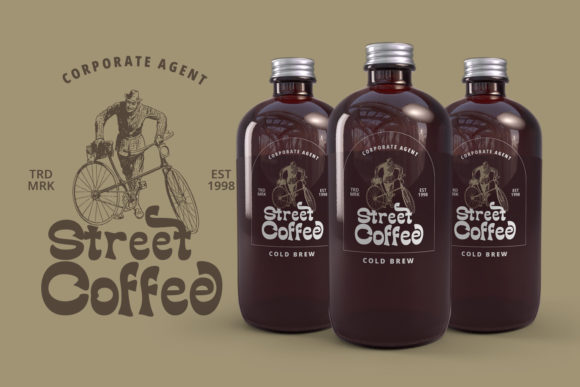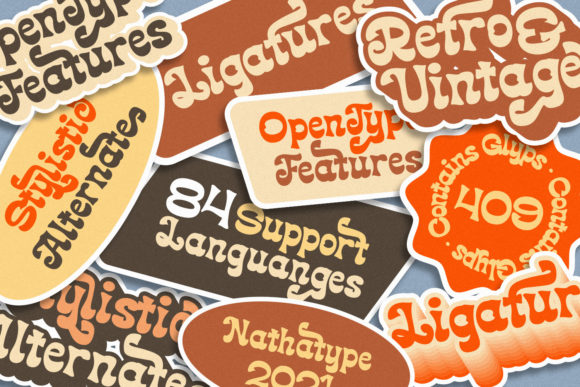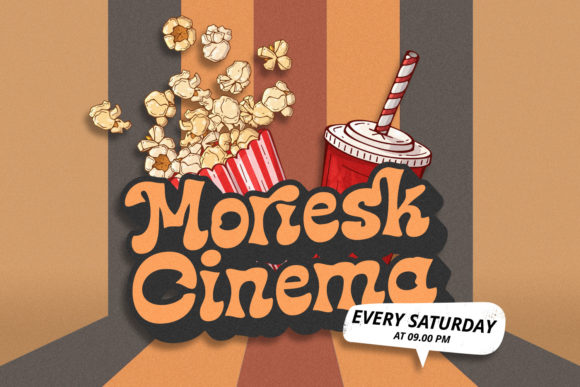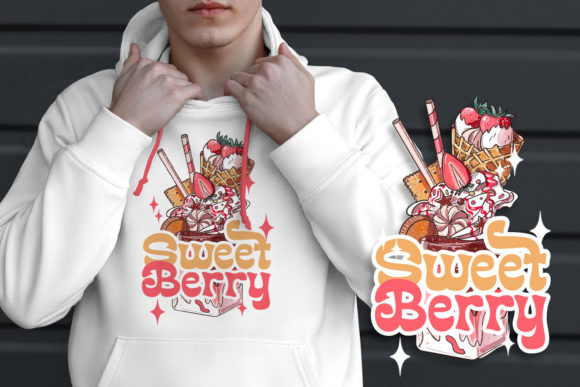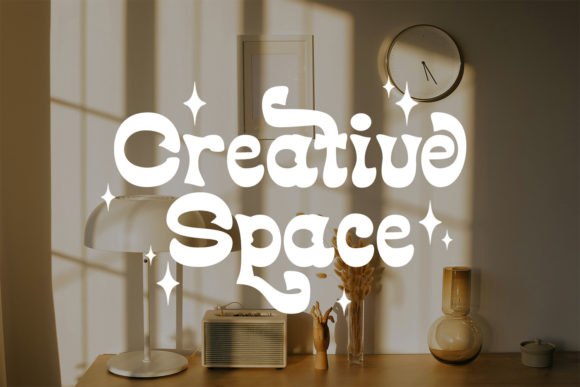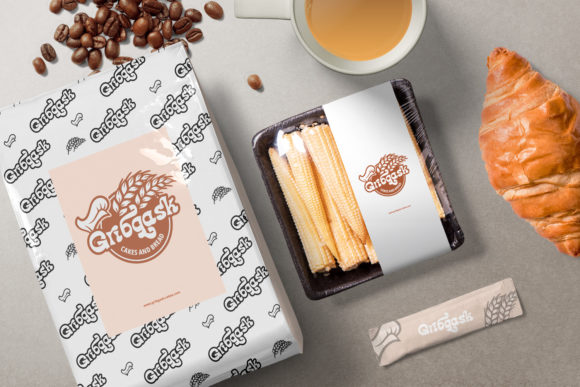
Introducing Big Flask Font: Elevate Your Designs with a Playful and Modern Twist
Are you tired of using the same old fonts for your designs? Do you want to add a touch of playfulness and modernity to your creations? Look no further than Big Flask Font, a stylish and versatile display font that’s perfect for designers, crafters, and anyone looking to elevate their visual projects.
What is Big Flask Font?
Big Flask Font is a carefully crafted display font that combines a playful and modern aesthetic with a hint of retro charm. This unique blend makes it an excellent choice for a wide range of design applications, from standout headings and logos to book covers, posters, t-shirts, branding, and advertisements.
Key Features of Big Flask Font
- Playful and Modern Design: Big Flask Font boasts a fresh and contemporary look that’s sure to grab attention. Its playful curves and lines add a touch of whimsy to any design.
- Retro Accent: The font’s retro accent gives it a unique character that’s reminiscent of classic designs from the past. This feature adds depth and personality to your creations.
- PUA Encoded: Big Flask Font is PUA (Private Use Area) encoded, which means you can easily access all the glyphs and swashes. This feature makes it simple to customize your designs and add a personal touch.
- Versatile: Whether you’re working on a logo, brochure, or social media post, Big Flask Font is the perfect choice. Its versatility ensures that it will work beautifully across various mediums and applications.
Use Cases for Big Flask Font
Big Flask Font is an incredibly versatile font that can be used in a variety of design projects. Here are some ideas to get you started:
- Logos and Branding: Create a memorable logo or brand identity with Big Flask Font. Its unique design ensures that your brand will stand out from the competition.
- Headings and Titles: Use Big Flask Font to create eye-catching headings and titles for your blog posts, articles, or website.
- Posters and Flyers: Add a touch of playfulness to your posters and flyers with Big Flask Font. Its retro accent ensures that your designs will grab attention.
- T-Shirts and Merchandise: Create custom t-shirts, mugs, and other merchandise with Big Flask Font. Its modern design ensures that your products will appeal to a wide audience.
- Book Covers and Magazines: Use Big Flask Font to create eye-catching book covers or magazine titles. Its versatility ensures that it will work beautifully across various genres and topics.
Why Choose Big Flask Font?
With so many fonts available, why choose Big Flask Font? Here are just a few reasons:
- Unique Design: Big Flask Font boasts a unique design that’s sure to elevate your creations.
- Easy to Use: The font’s PUA encoding makes it simple to access all the glyphs and swashes.
- Versatile: Big Flask Font can be used across various design applications and mediums.
- High-Quality: The font is designed with high-quality and legibility in mind, ensuring that your designs will look professional and polished.
Big Flask Font is an excellent choice for designers, crafters, and anyone looking to elevate their visual projects. Its playful and modern design, combined with its retro accent and PUA encoding, make it a versatile and unique font that’s perfect for a wide range of applications. Whether you’re working on a logo, brochure, or social media post, Big Flask Font is sure to add a touch of personality and whimsy to your creations.